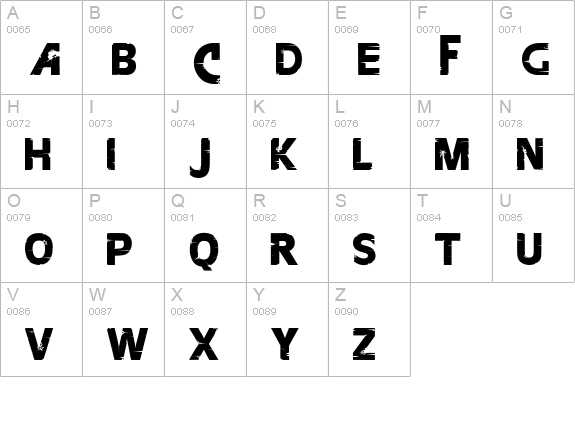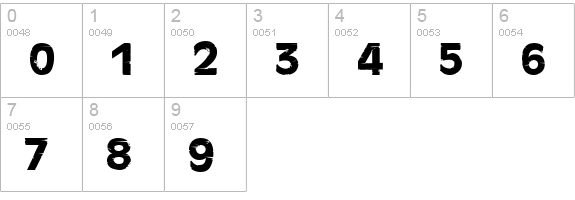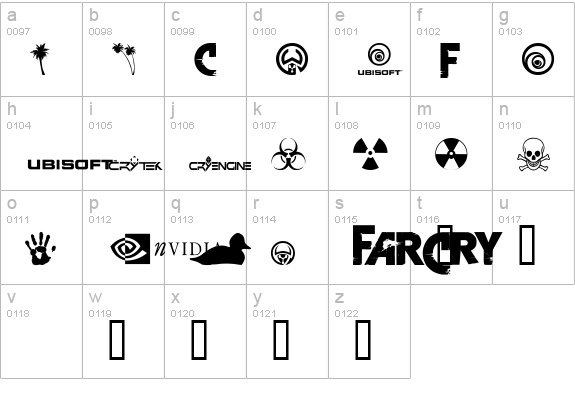
FarCry ExtraBold is an extra-heavy, attention-grabbing variant in the FarCry typeface family \xE2\x80\x94 well suited to high-impact headlines, posters, and bold branding.
FarCry ExtraBold is a bold and eye-catching display font that is sure to make a statement in any design project. With its strong, impactful appearance, this font is perfect for headlines, titles, logos, and more. The thick, chunky letterforms give off a modern and edgy vibe, making it ideal for projects that require a touch of boldness. What's even better is that FarCry ExtraBold is available for free download at FontsMarket.com. This means you can easily add this striking font to your collection without breaking the bank. Whether you're working on a poster, website, or branding project, FarCry ExtraBold is sure to help you stand out from the crowd. Download it now and unleash the power of bold typography in your designs.